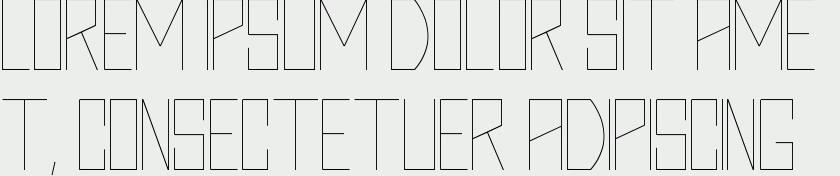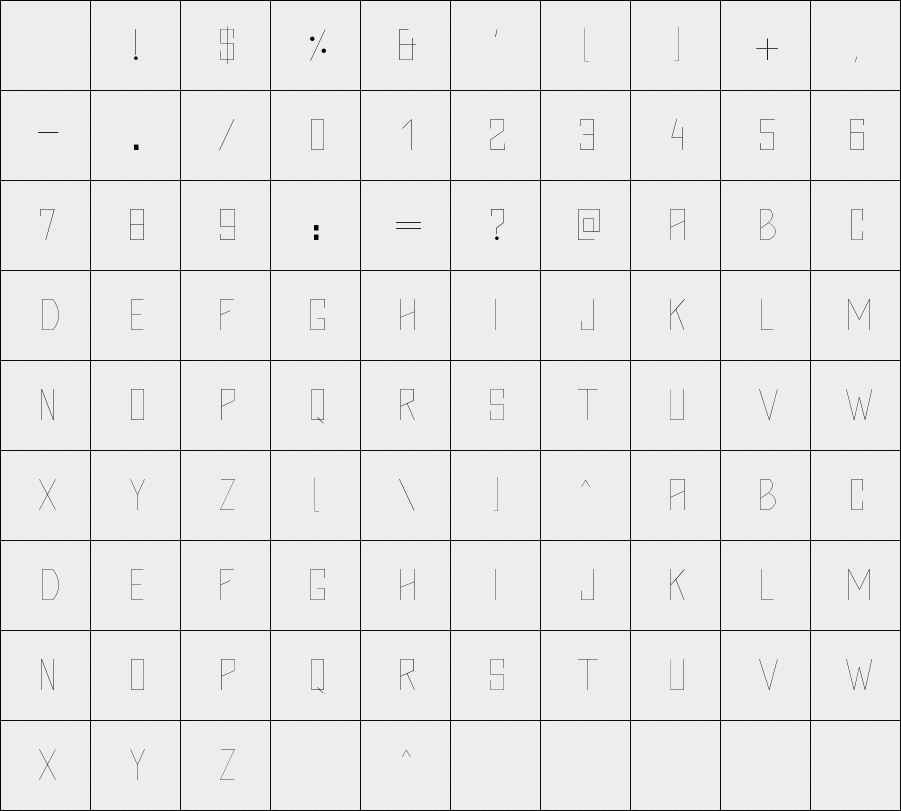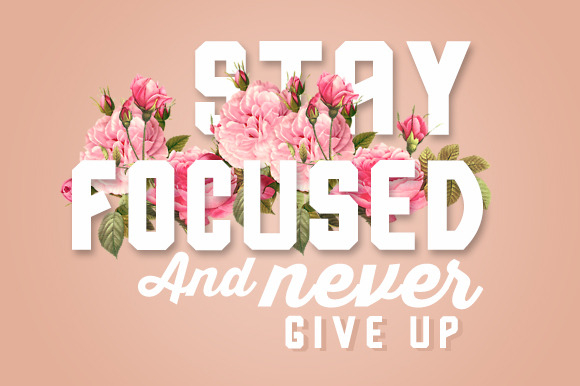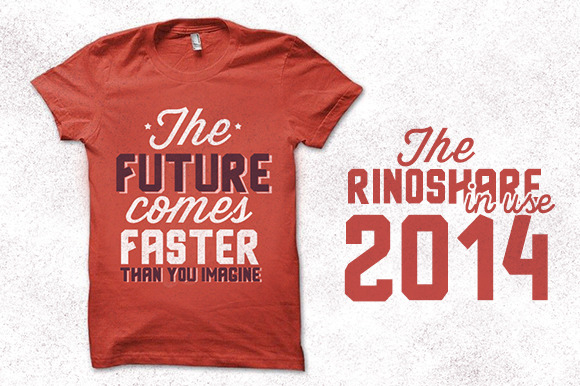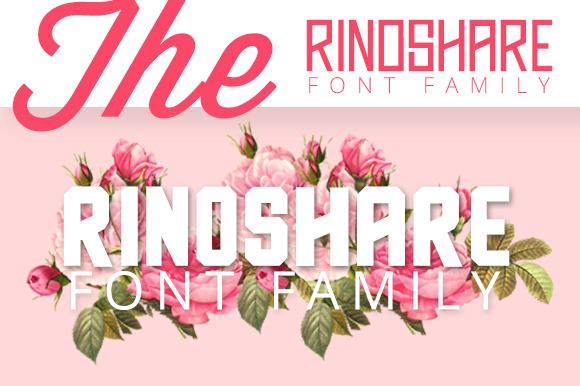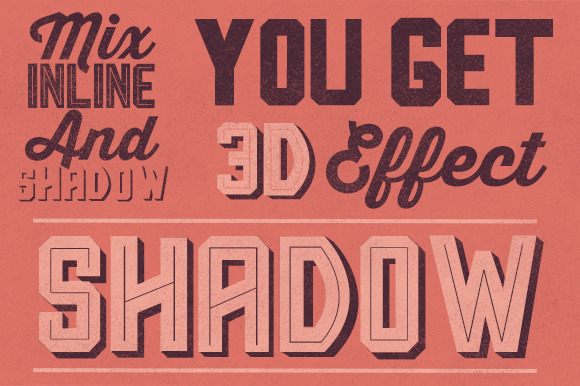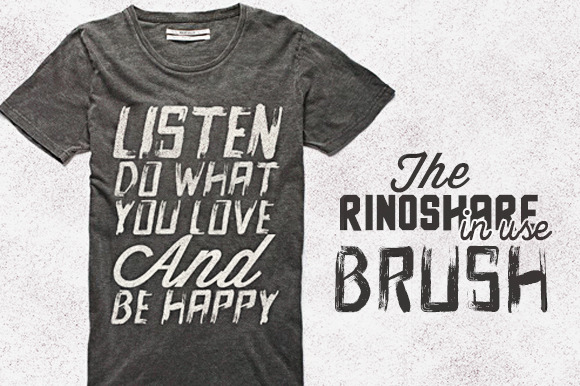
Rinoshare font family
/ Rinoshare Extralight
Rinoshare is a font family of 7 faces exclusive in hellofont Outstanding font styles will perfectly fit for headlines of all sizes, print graphics, logos, badges, t-shirts site web and other designs.
7 high quality typefaces + bonus
Rinoshare Extralight
Rinoshare Light
Rinoshare Regulart
Rinoshare Bold
Rinoshare Inline
Rinoshare Shadow
Rinoshare Brush
Designer: rachid aitouaissi